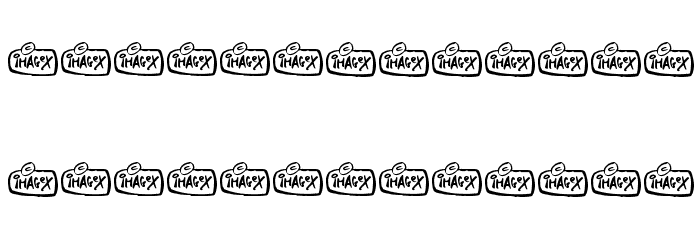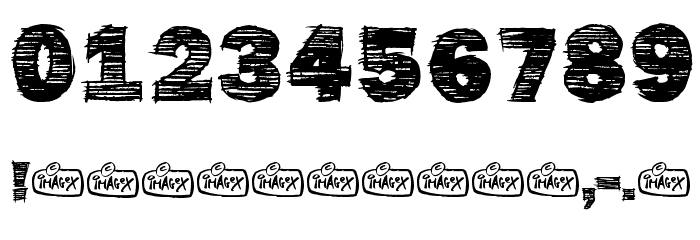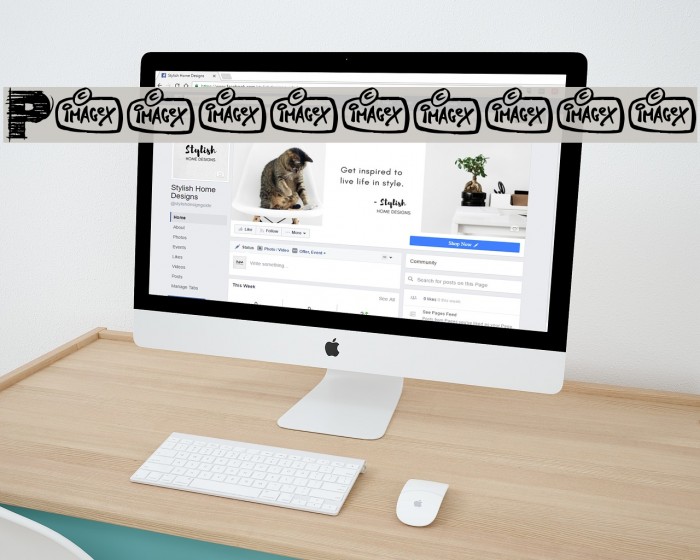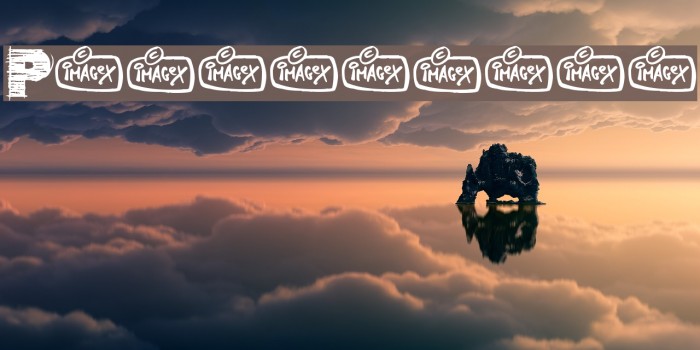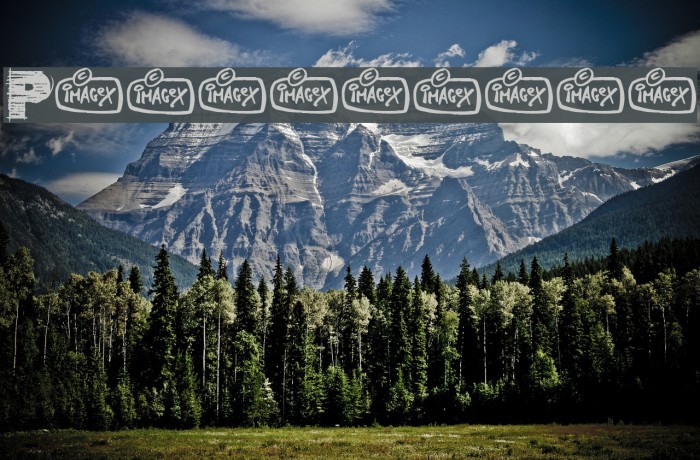
Penstriped Font
This font features a bold, textured style that mimics the appearance of hand-drawn pen strokes. Each character is filled with dense, irregular lines that create a dynamic and energetic look. The uppercase letters are robust and impactful, while the lowercase letters maintain the same textured aesthetic. Numbers and special characters follow the same design, ensuring consistency across all glyphs. The overall appearance is rugged and artistic, making it suitable for creative projects that require a distinctive and eye-catching typeface.
A bold, textured font with hand-drawn pen stroke aesthetics.
- Proposed Projects: Ideal for posters, album covers, artistic branding, and any project needing a bold, creative touch.
- Overall Style: Artistic, Textured